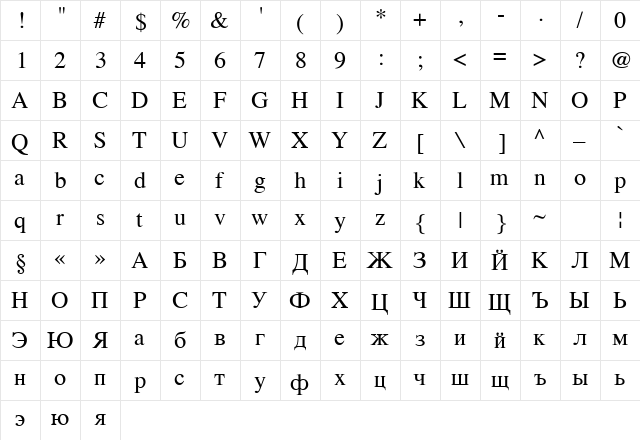
Pravda Regular
Design Context for Pravda Typeface
Pravda takes a measured approach to typography — its balanced proportions and neutral character make it a reliable workhorse for both digital and print work.